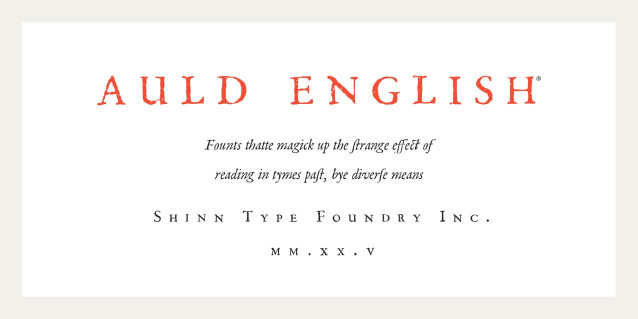
Auld English Spell Font
Auld English Spell Font is a simple and modern display font suitable for quotes, logos, headings, titles, and many more. Use it on any of your creative projects, and your designs will become outstanding!